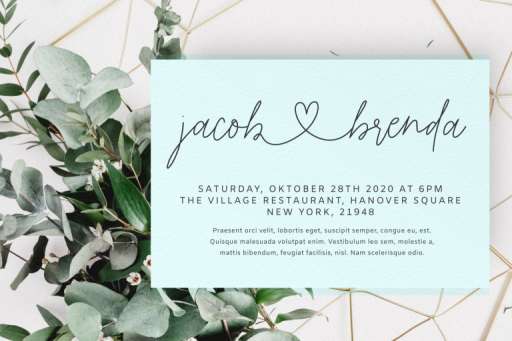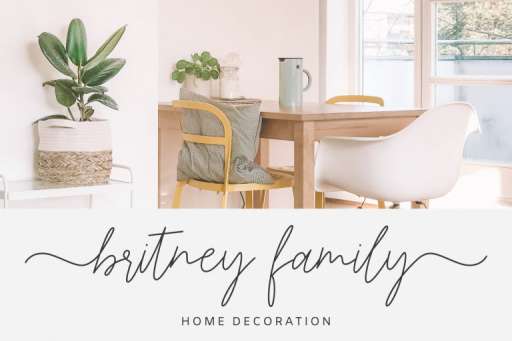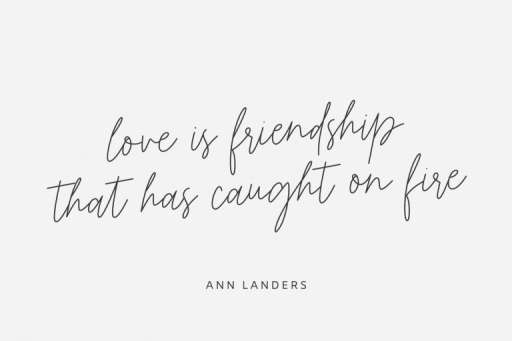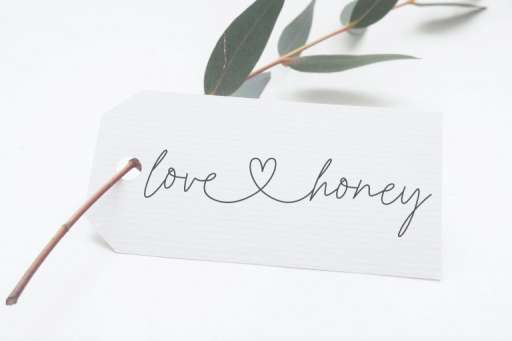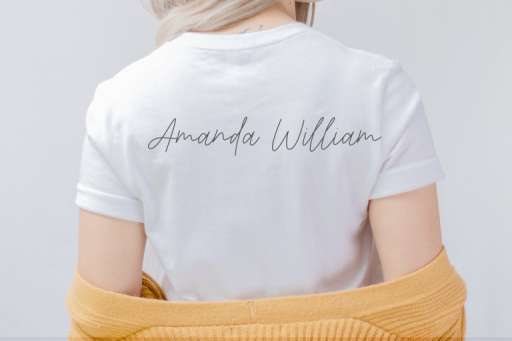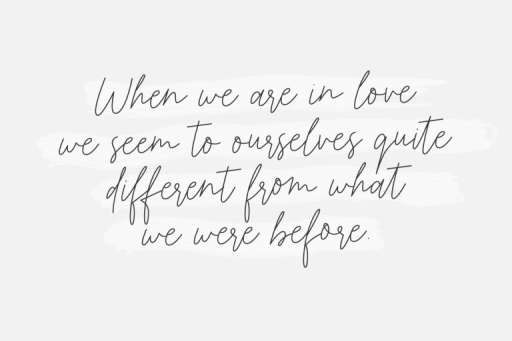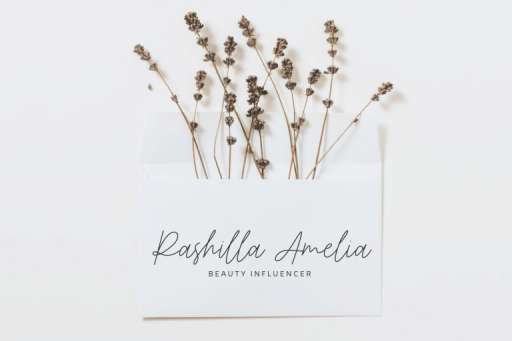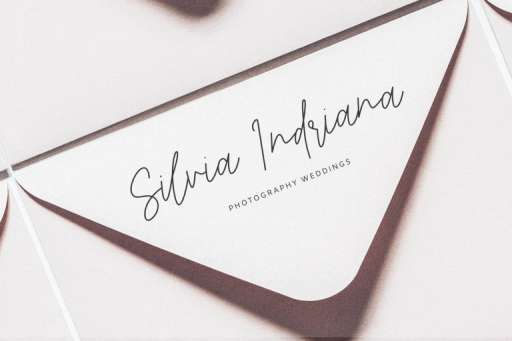
Jack and Kate – Branding Wedding Font
Jack and Kate adalah font kaligrafi modern dengan gaya monoline, feminin, dan mesin terbang hati. Ini sempurna untuk branding, tulisan pernikahan, sampul buku, majalah, logo, pemasaran, kartu, dan banyak lagi.
Jack dan Kate menampilkan karakter standar, ligatur, dan dukungan multibahasa. Juga termasuk swash awal dan akhir huruf kecil; huruf kecil yang menghubungkan swash jantung.
Use the following combos:
– Lowercase beginning swash
- type: -a (hyphen lowercase letter)
- For example: -hellen -angela -park
– Lowercase ending swash
- type: a- (lowercase letter hyphen)
- For example: hellen- angela- park-
– Letter with connecting heart
- type: a_a ( lowercase letter underscore lowercase letter)
- For example: k_l c_m
Jack and Kate Features :
- Basic Latin A-Z and a-z
- Numbers
- Punctuation
- ligature
- Swash lowercase Heart Ending
- Swash lowercase Beginning & Ending
- Multilingual